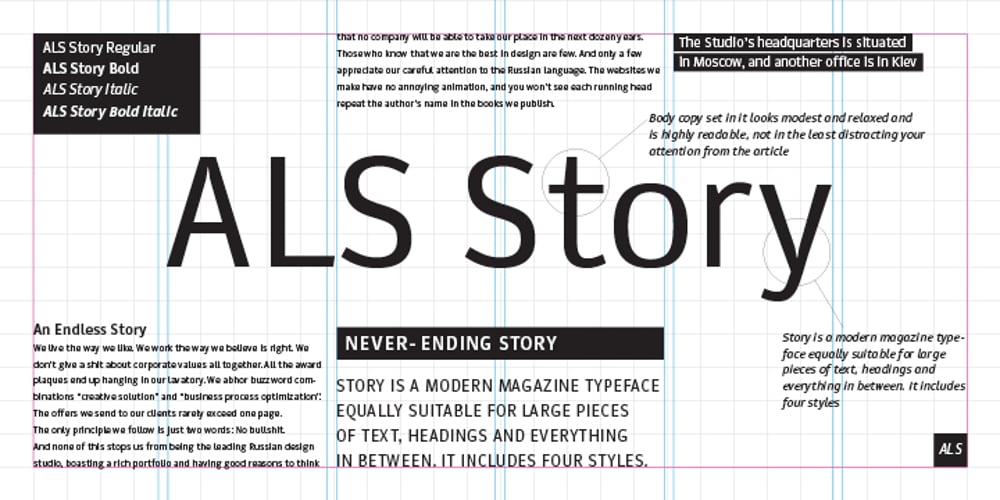
ALS Story Font Family was designed by Zakhar Yaschin, Taisiya Lushenko and published by Art. Lebedev Studio. ALS Story contains 4 styles and family package options. Story is a modern magazine typeface equally suitable for large pieces of text, headings and everything in between. It includes four styles. Body copy set in it looks modest and relaxed and is highly readable, not in the least distracting your attention from the article.